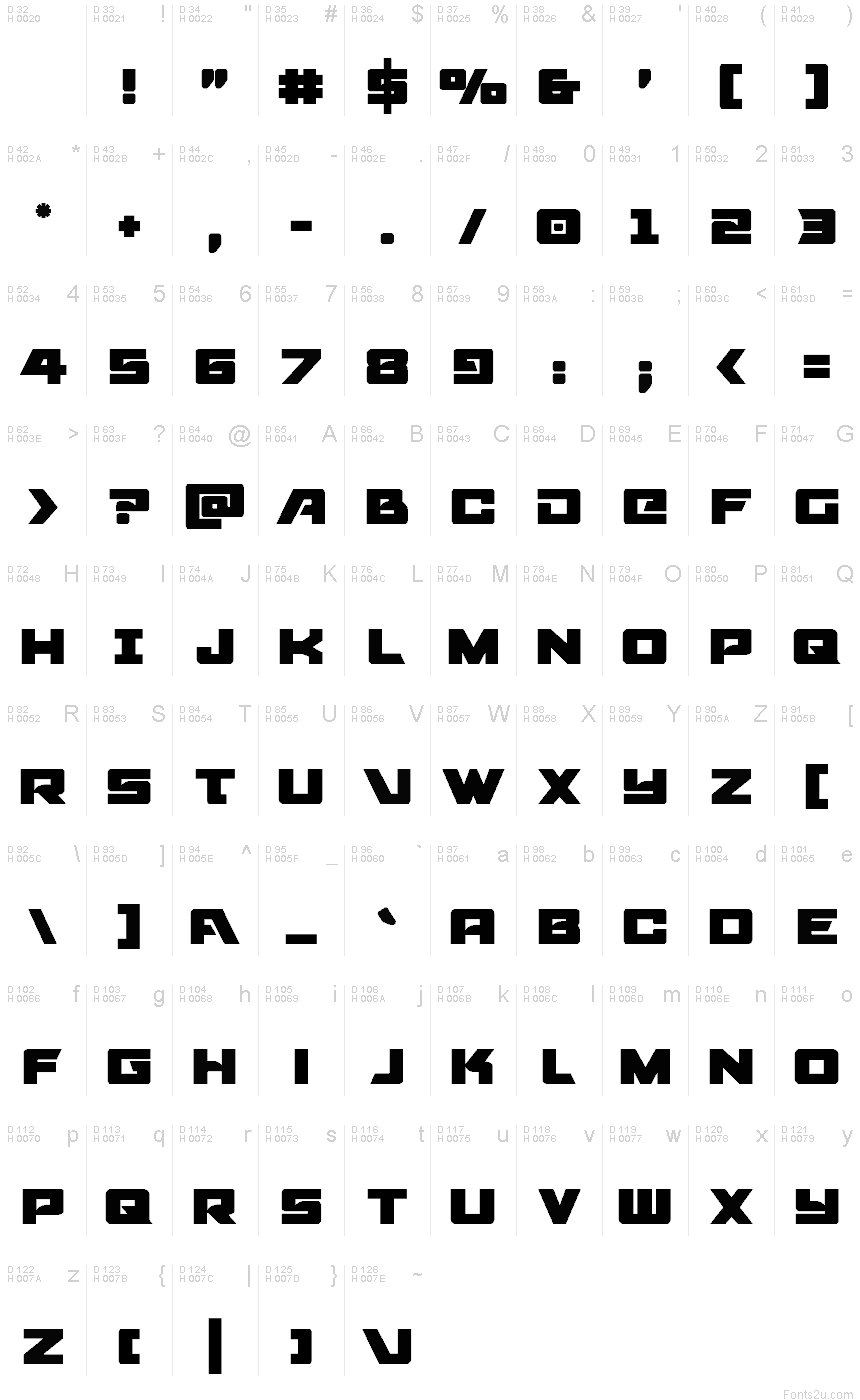
Aircruiser by Daniel Zadorozny of Iconian Fonts is a free futuristic sans serif with broad, sharply engineered letterforms. Deep notches, clipped corners, and open joins break up the dense strokes and recall custom machinery.
Science-fiction and gaming audiences will recognize its cockpit-display attitude in title cards and interface graphics. It also suits motorsport branding and electronic music packaging. The recurring cuts suggest vents and instrument panels, helping the type become part of a technical graphic theme.
Aircruiser